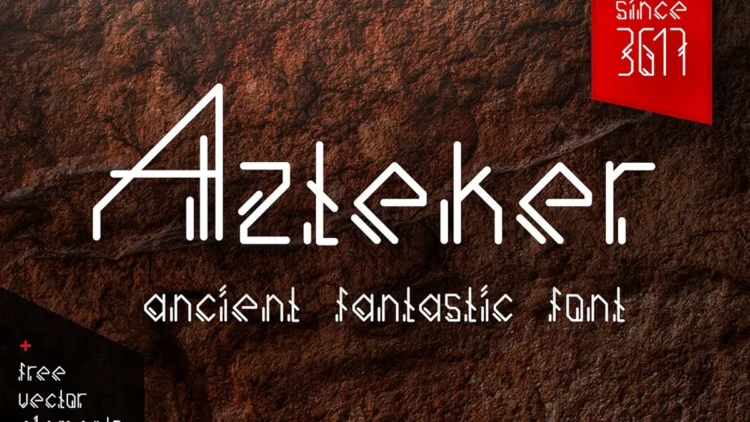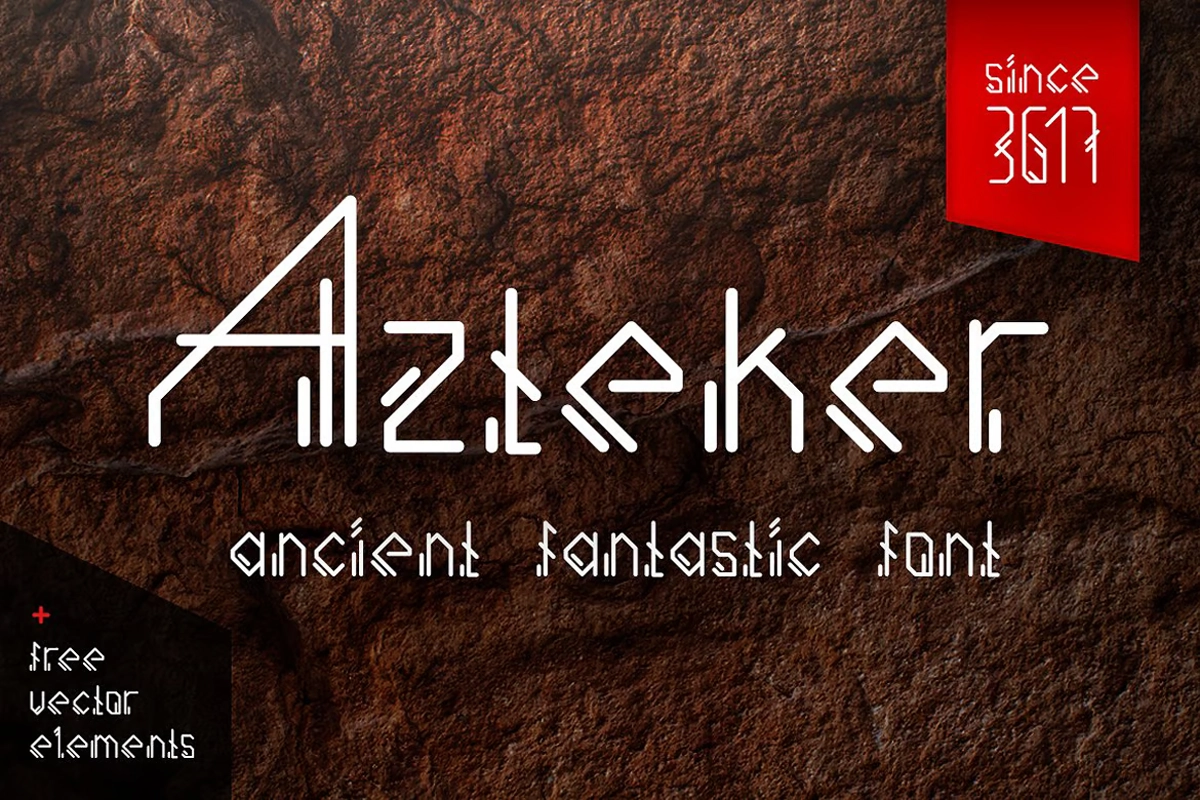
Are you looking to infuse your designs with a bold and ancient aesthetic? Our carefully curated selection of Aztec fonts offers the perfect solution. Drawing inspiration from the intricate art and architecture of the Aztec civilization, these fonts capture the essence of a rich cultural history. Known for their sharp geometric patterns and strong, symmetrical shapes, Aztec fonts can add a sense of mystery, strength, and sophistication to your work.
Whether you’re designing for a brand, creating striking logos, or crafting a unique visual for a poster or book cover, the right Aztec font will immediately grab attention. These fonts evoke the grandeur of ancient temples and the power of a bygone era, making them ideal for projects that require both uniqueness and impact. Explore our roundup of the best Aztec fonts to elevate your designs with a touch of historical depth and cultural resonance.
1. Azteker – ancient fantastic font
Azteker , a sans serif font that is inspired by intricate Aztec designs. This font adds a touch of history to your design projects with its clean lines and geometric details. Azteker is perfect for logos and branding, apparel and titles. It also comes with free bonus elements, such as decorative frames and vector line art, to boost creativity.
2. Santiago – Authentic Mexican Font
Santiago brings Mexican culture into your designs with its exquisitely handcrafted font. Each letter was meticulously drawn by hand, creating a style that is authentic and decorative. It captures the vibrancy of Mexican art.
Santiago is perfect for logos, restaurant branding, and menus. It can also be used in posters, flyers, invitations, or other designs. This font can be used for advertising materials, apparel, business cards, and more.
3.ETHNIQUE Font
ETHNIQUE Font is inspired by ancient Maya and Aztec tribe art. Its unique shapes and lines create an authentic and intriguing look. It is a font that captures the essence and spirit of ancient civilizations.
The bold, adventurous style of ETHNIQUE Font is perfect for online games, posters and movie titles. It can also be used in magazines, YouTube thumbnails and covers, adventure flyers and social media banners.
4. MOJITA FONT
MOJITA Font has a beautiful, intricate and balanced design that sets it apart from all other fonts. MOJITA is a geometric display typeface that draws inspiration from Japanese Art Deco, Aztec and Mayan patterns and Aztec art. It has a bold aesthetic. It offers versatility with its 300 glyphs, extended language support and 120 Latin-based Latin languages.
MOJITA is a versatile typeface that can be used for logos, editorials, retail designs and more. It also works well as a standalone typographic artwork.
5. Nomad Tribes – Ancient Display Font
Nomad Tribes Ancient Display Font captures the mystique and spirit of forgotten civilizations, bringing to life a captivating, bold design that brings forth the spirit of nomadic tribes. Each letter represents the resilience, strength and rich heritage left by those who have made their mark in history. It transports viewers to an era of distant rituals, untamed landscapes, and ancient cultures.
Nomad Tribes’ intricate details and meticulously designed font resemble ancient calligraphy. It is perfect for projects aimed at inspiring wonder and curiosity. This font is perfect for branding, posters and book covers. It also works well for logos and other projects.
6. Arlo – Puzzle Display Font
Arlo, a unique display font inspired by puzzles, is designed to capture the attention of viewers with its intricate and distinct letterforms. Arlo is a unique display font that draws the eye with its individual characters. This typeface is perfect for grabbing attention. It’s ideal for posters and logos.
Arlo’s versatility is enhanced by its support for both uppercase and lowcase letters, as well as multilingualism. Your designs will stand out in a fun yet sophisticated way.
7. Buick Font
Buick Font has a futuristic, bold design with an ethnic blend that makes it stand out. The combination of strong uppercase letters and geometric shapes creates a powerful and assertive presence while still maintaining a distinctive and memorable form.
This font is a great choice for logos, posters, branding, headlines and other projects that have a sci-fi or ethnic theme. Buick Font gives your design a modern, yet culturally rich feel.
It is ideal for mystery and adventure book covers and online games, as well as posters for events as well as school materials, movie titles YouTube covers thumbnails banners for social media, and much more. Aztech Font adds a touch of culture to any design. It is awe-inspiring for youngsters and beyond.